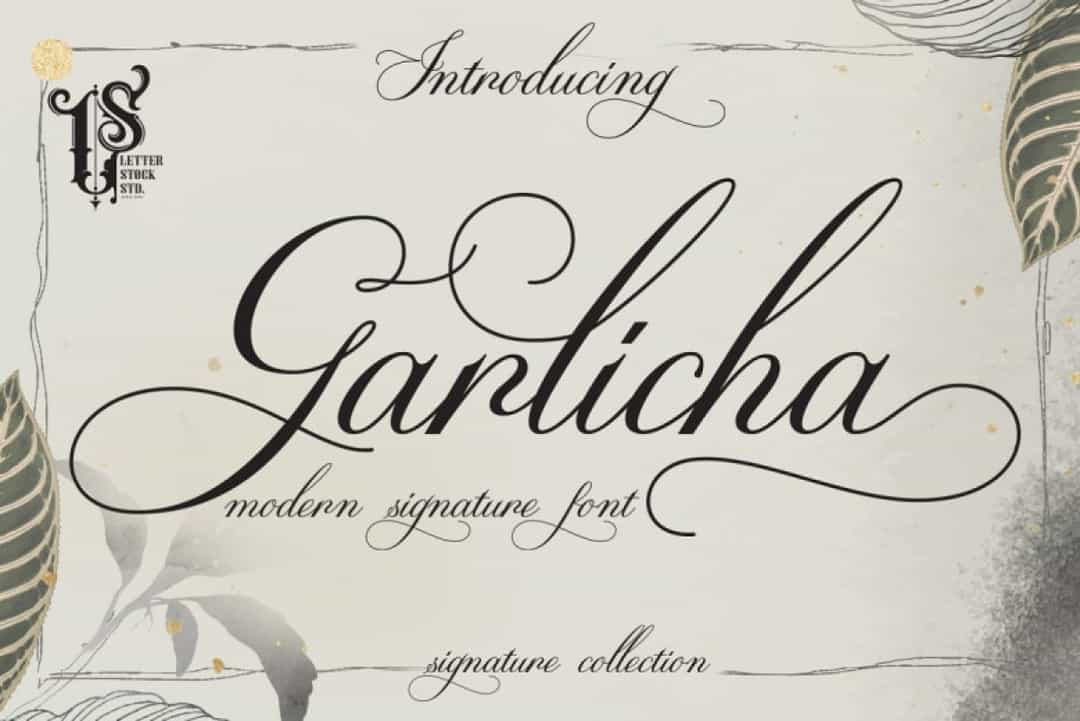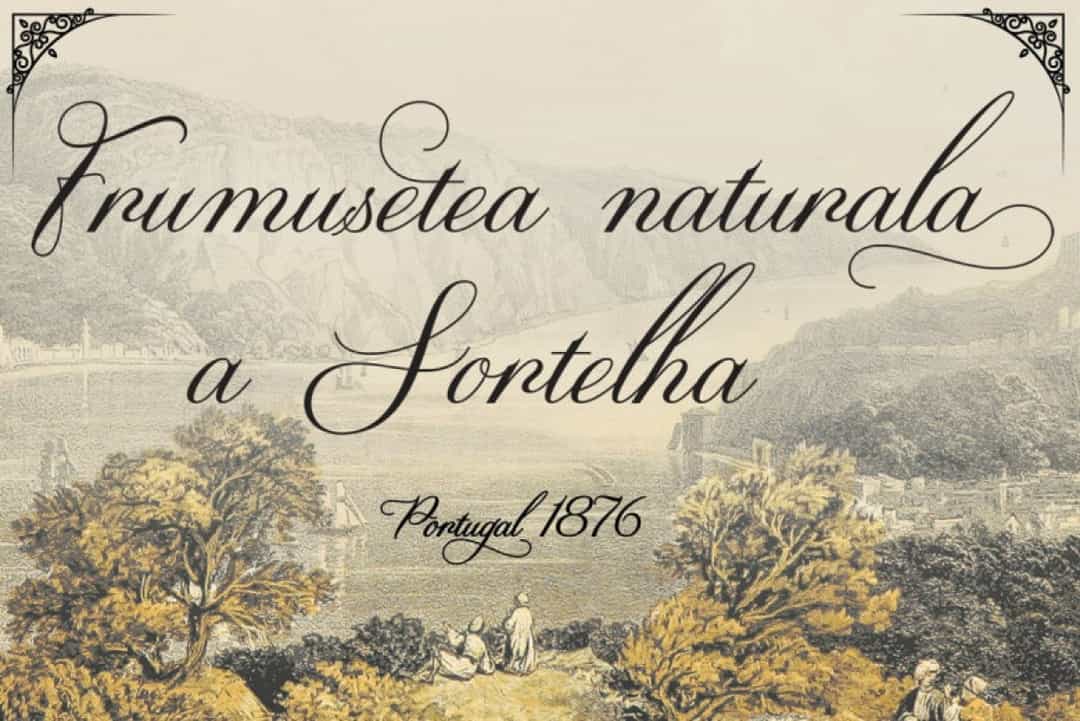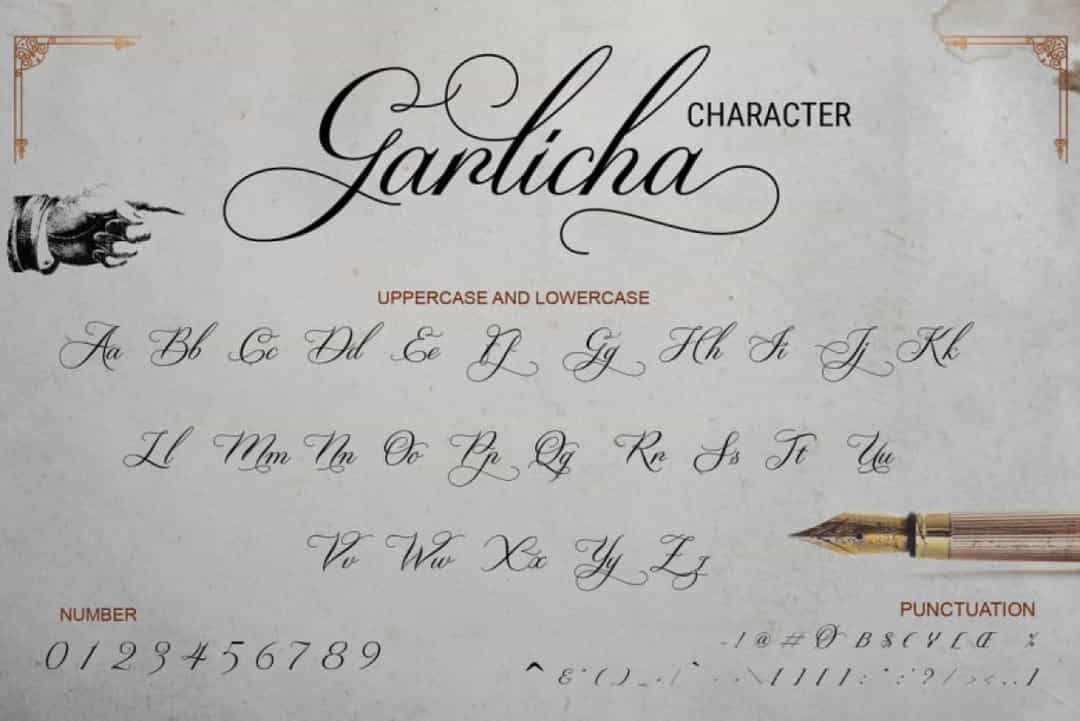
Garlicha Calligraphy Font pair was inspired by the beautiful lettering design on a poster I saw at a coffee shop, then thoughtfully handwritten using pentool. I created it to replicate that same handmade aesthetic for its branding, then neatened up using pentool. As this gorgeous font was produced through authentic handwriting techniques it makes it the ideal way to incorporate handwriting elements into designs for an authentic appearance.